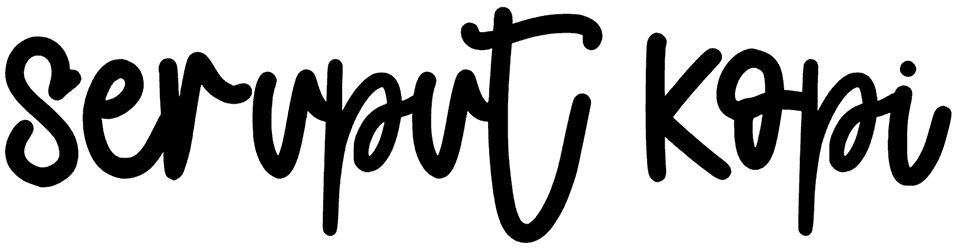
Seruput Kopi Font
Seruput Kopi is a script font that has a smooth texture with a sophisticated flow, so it would be really perfect for a wide range of graphic content, such as posters, digital banners, web pages, and the user interface of…
Seruput Kopi is a script font that has a smooth texture with a sophisticated flow, so it would be really perfect for a wide range of graphic content, such as posters, digital banners, web pages, and the user interface of video games, and photo editing. Due to its elaborate design, this fast handwritten font leads to a sense of personalization, dynamism, and precision.